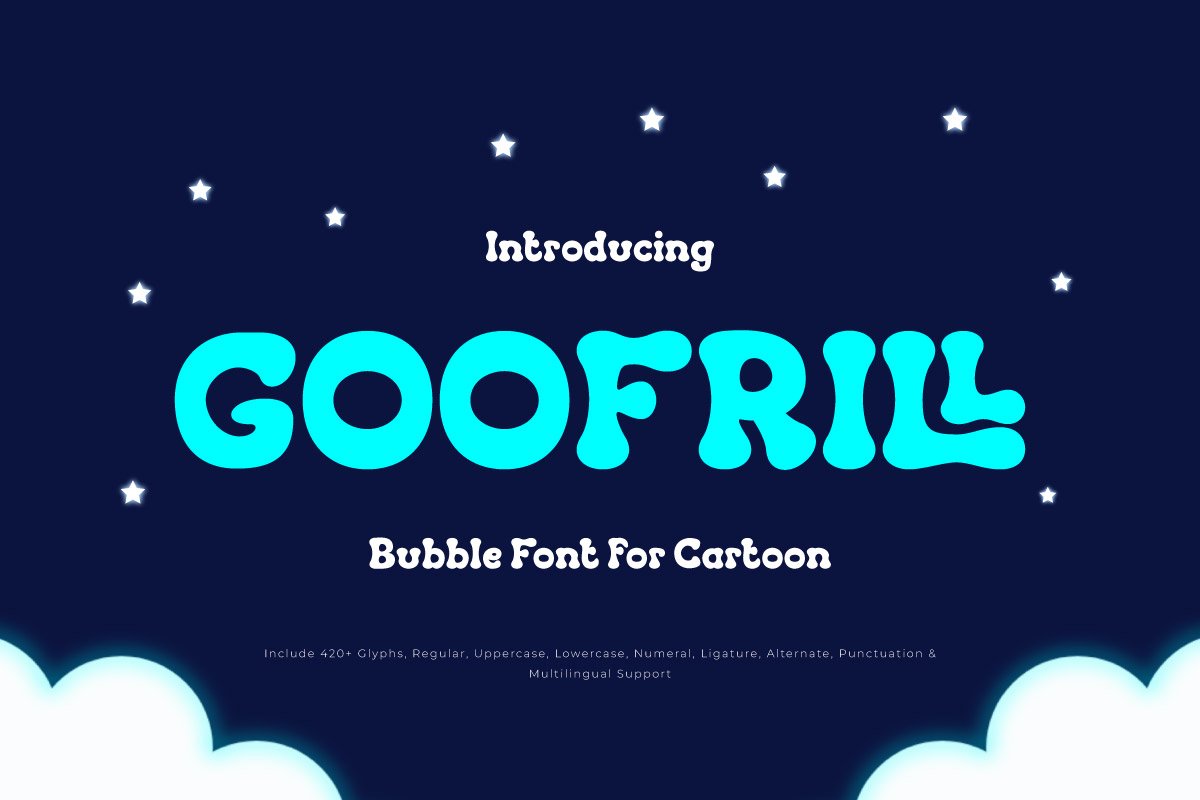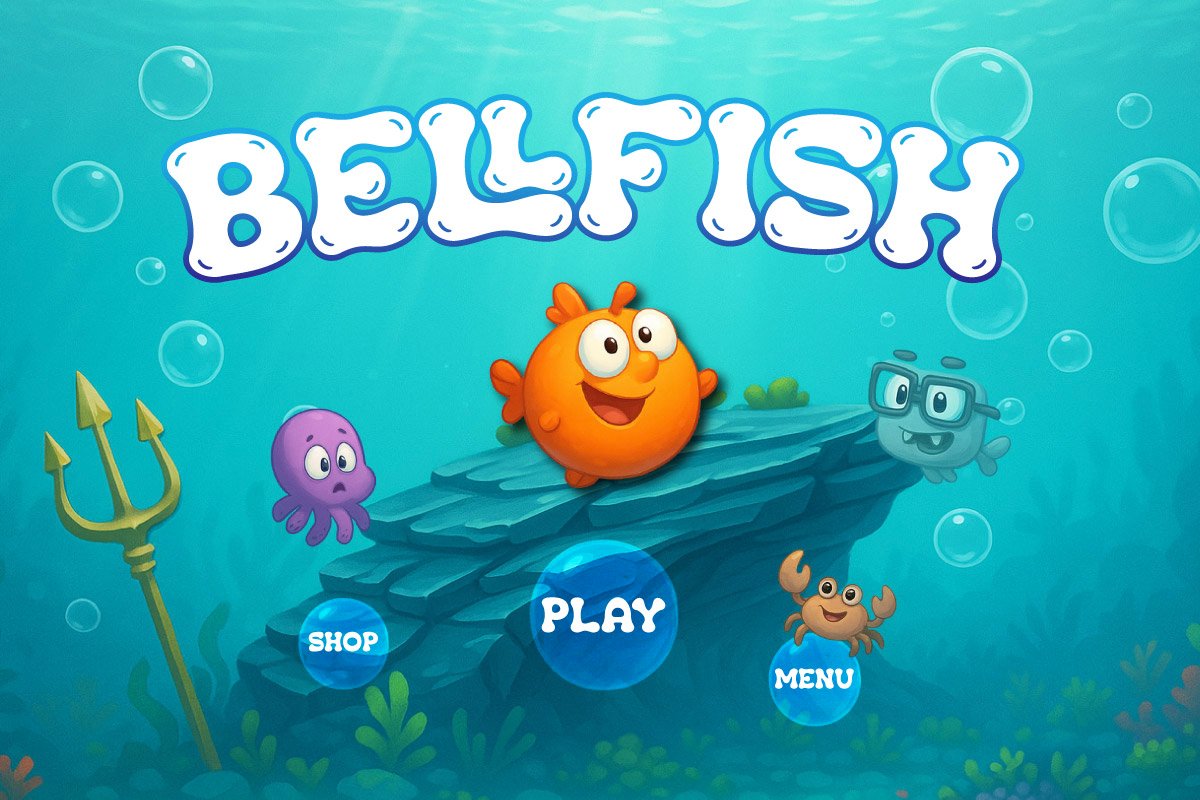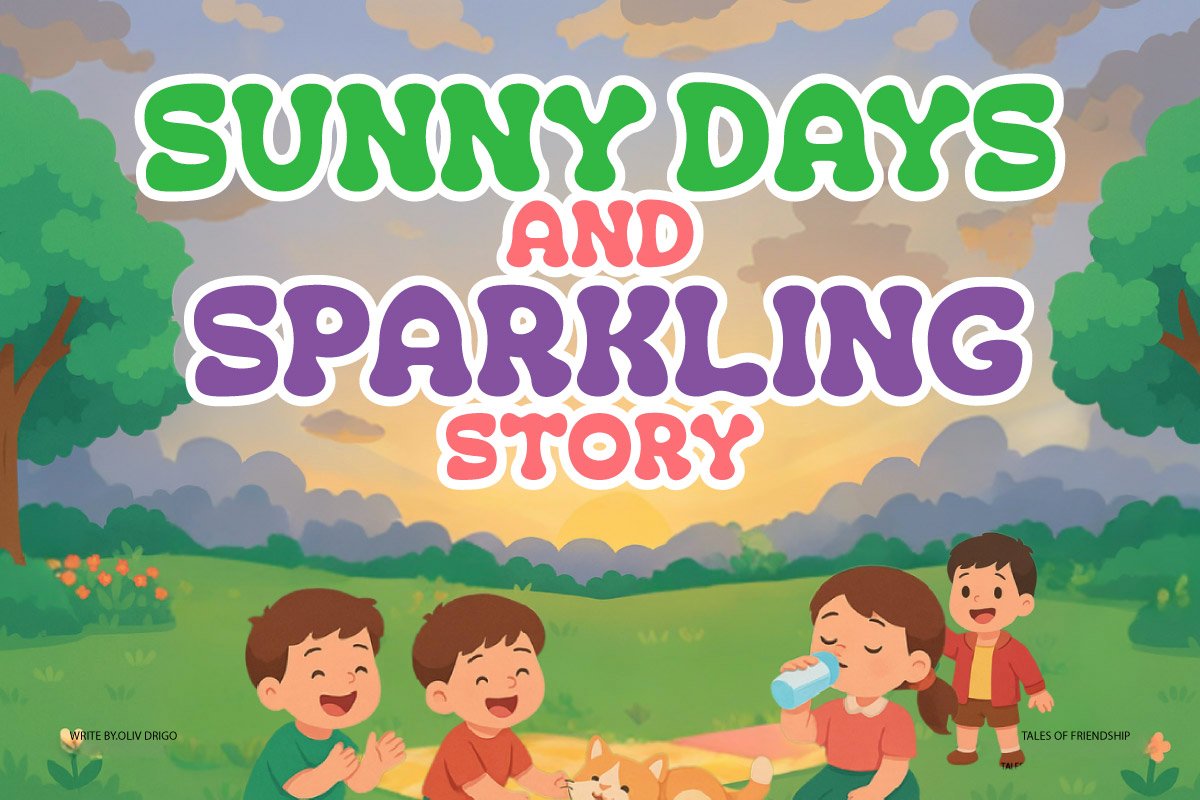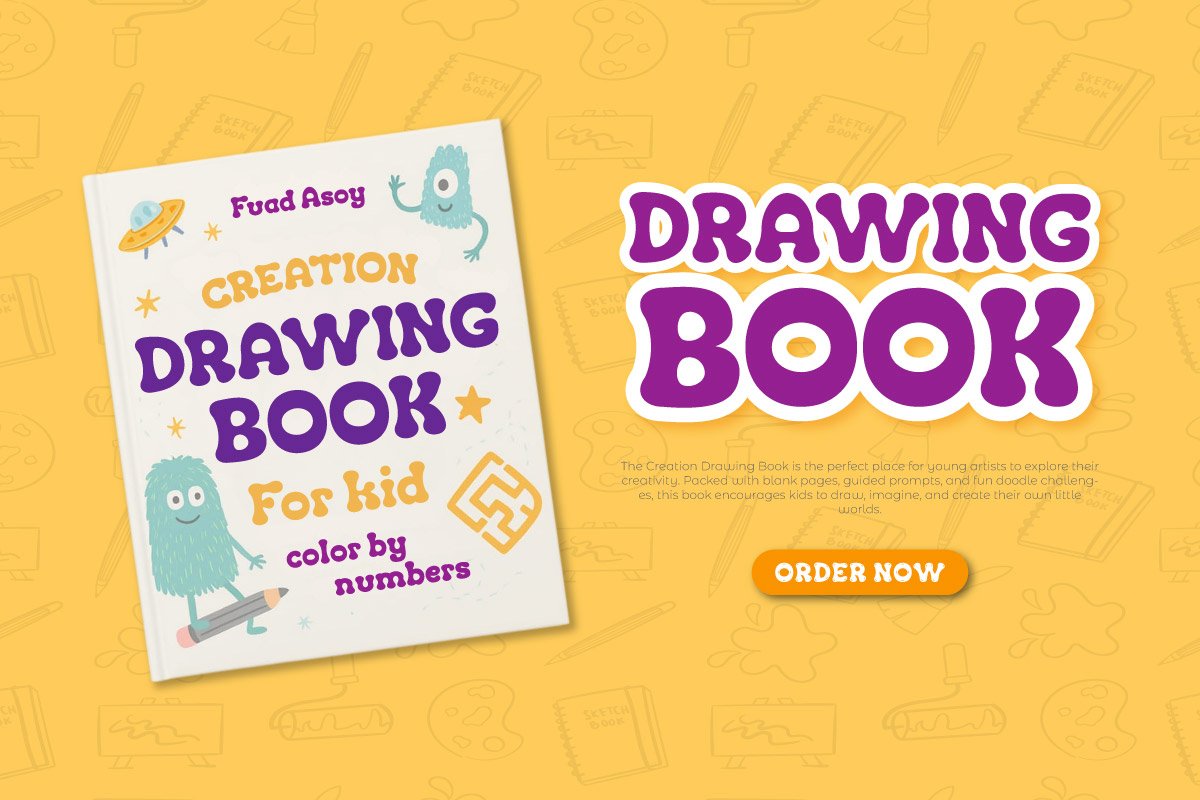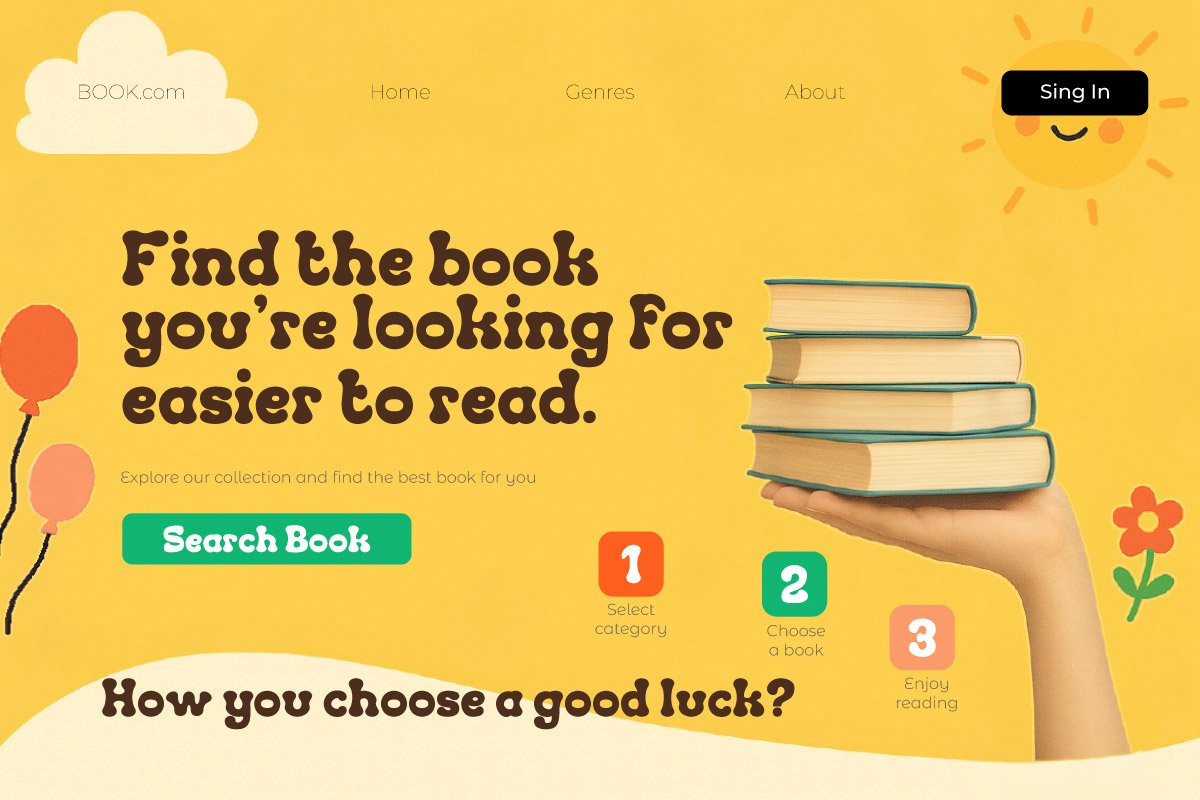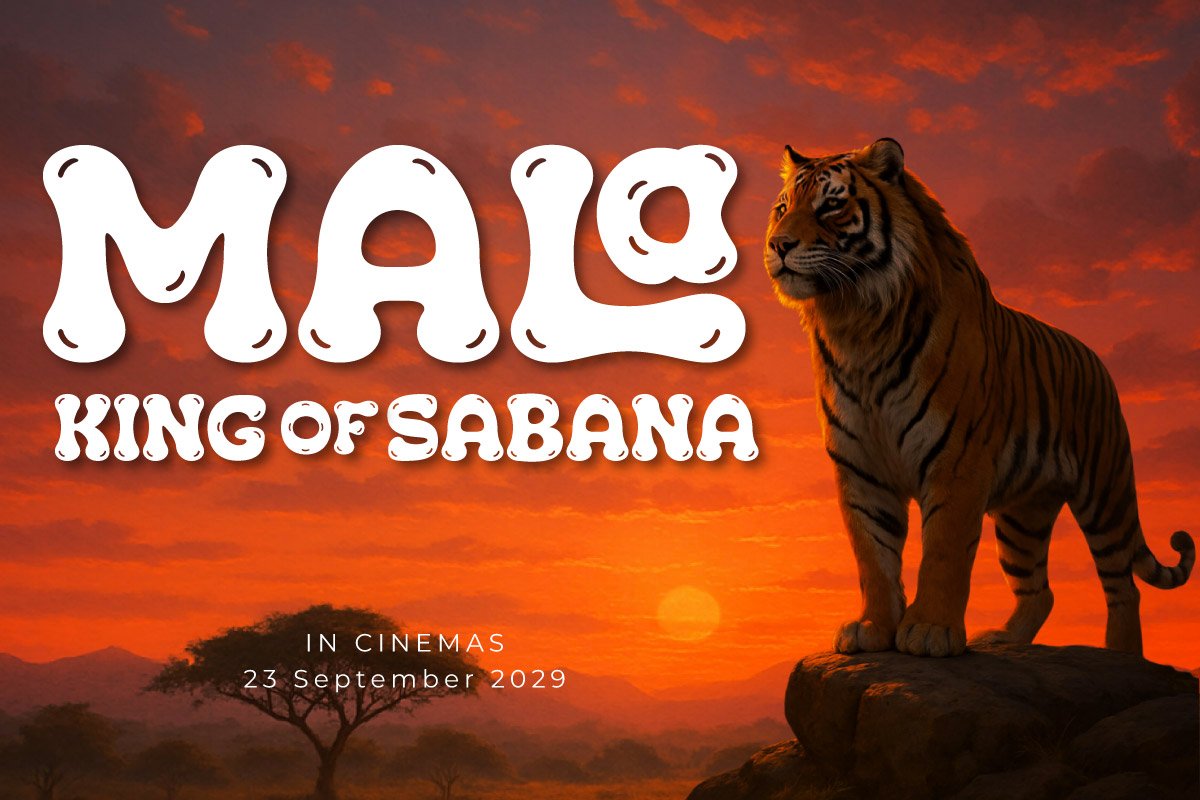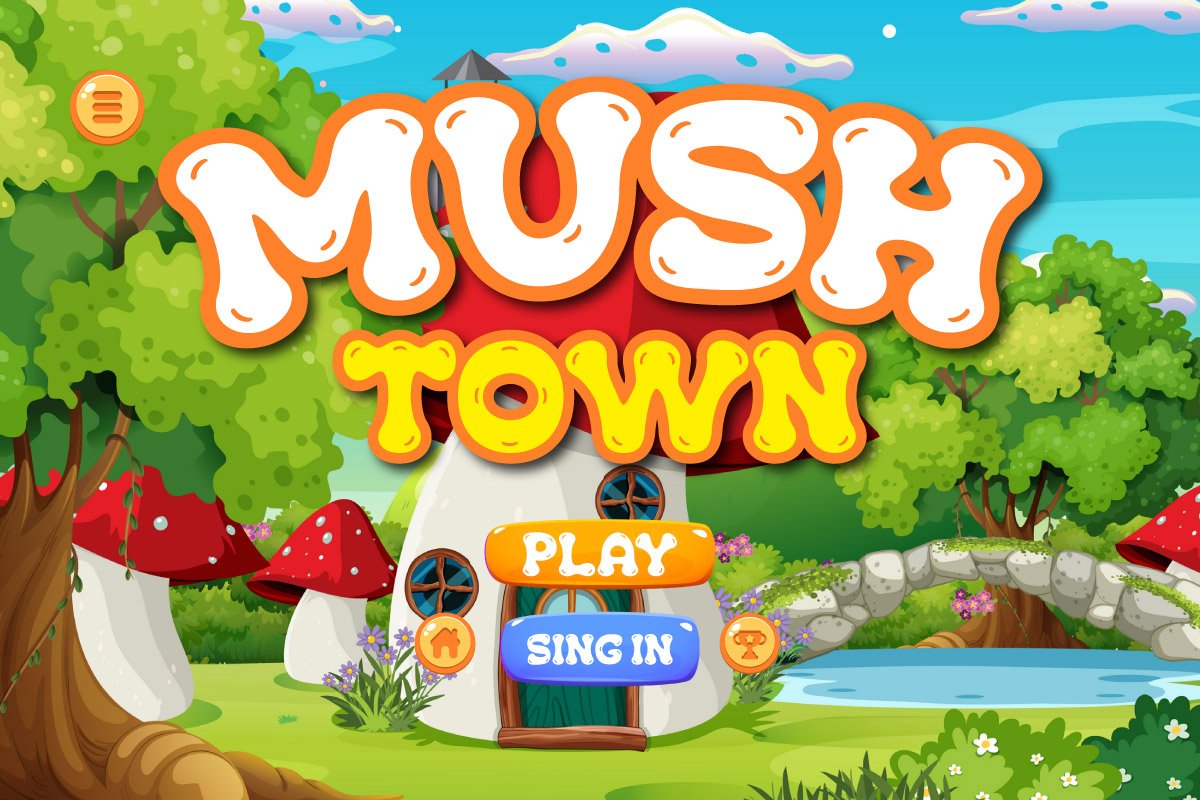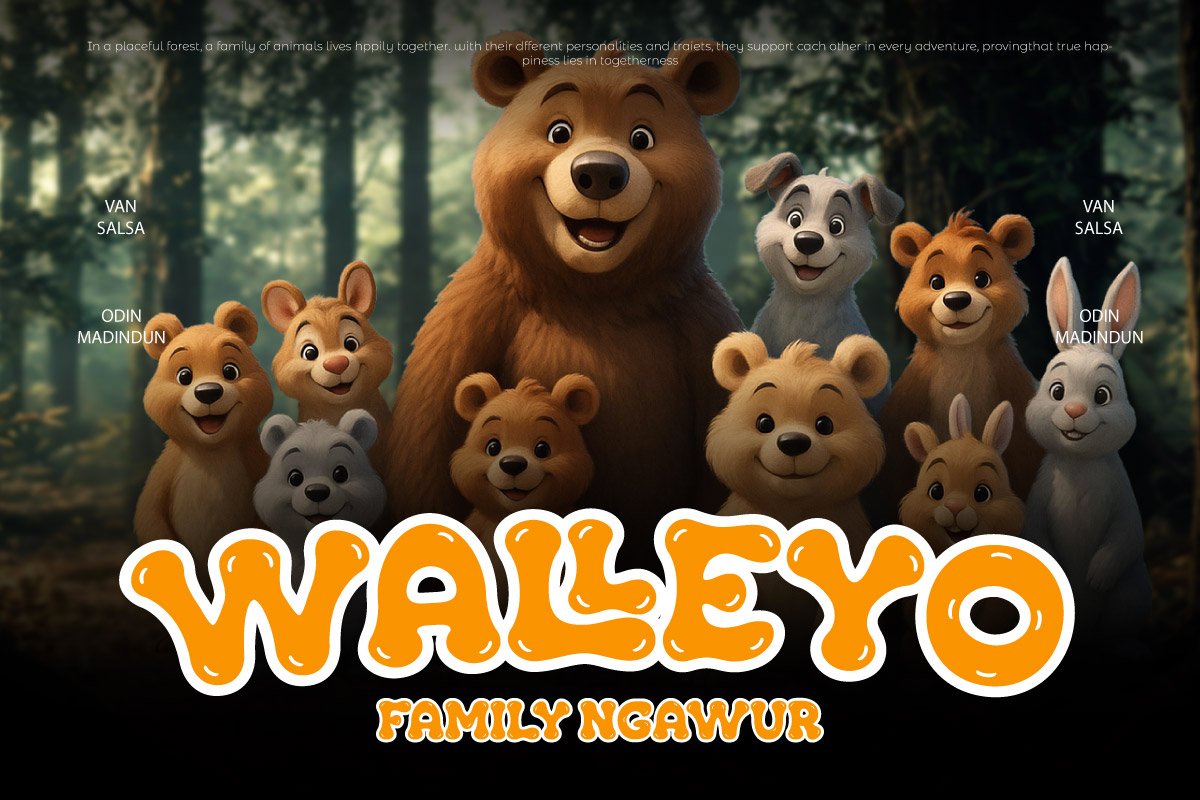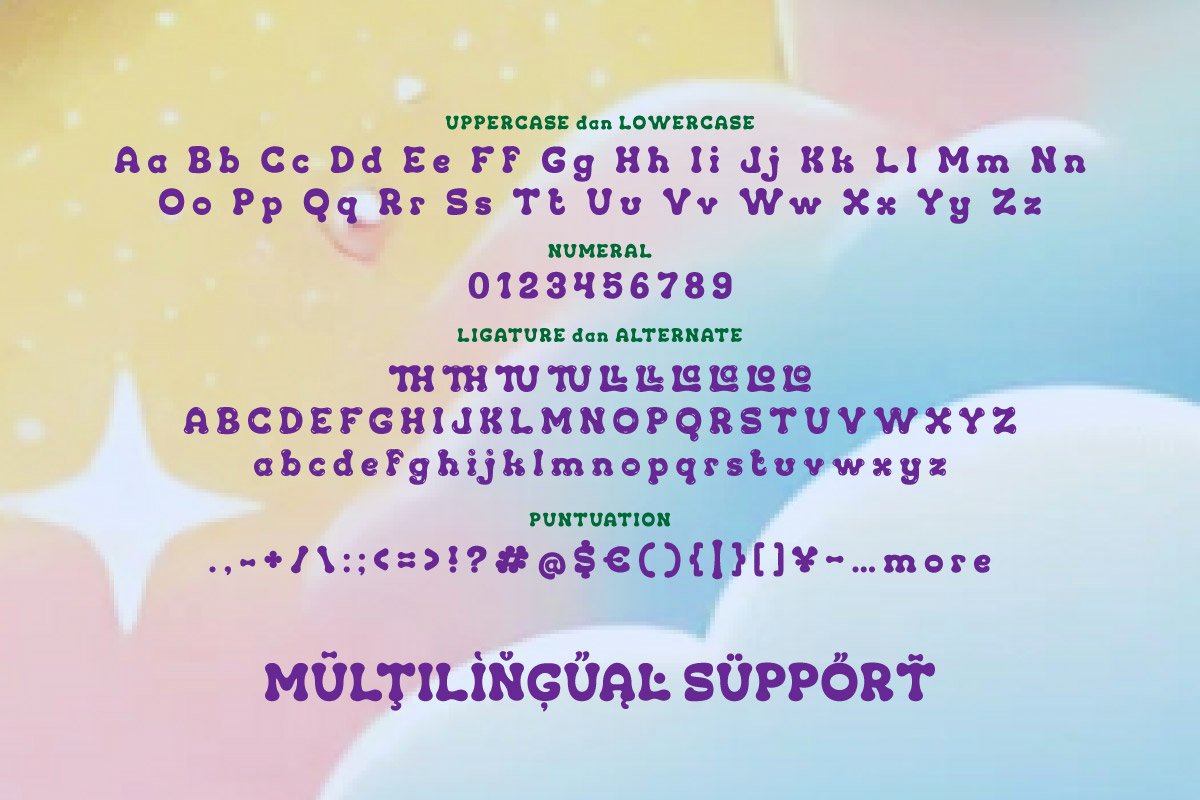
Goofrill – Cartoon Display Font
Bring out the fun and energy in your designs with Goofrill, a playful cartoon display font that radiates charm and silliness! Designed with bold curves, bouncy letterforms, and a cheerful personality, Goofrill is perfect for children’s books, animated titles, toy packaging, birthday invitations, and all kinds of whimsical creative projects.
Whether you’re crafting a colorful comic, launching a kids’ app, or branding a fun snack product, Goofrill adds a delightful and joyful touch. Its quirky style captures the imagination and keeps the tone light-hearted and approachable. This font is easy to read yet full of unique character—just what you need to make your design stand out in the cartoon universe.